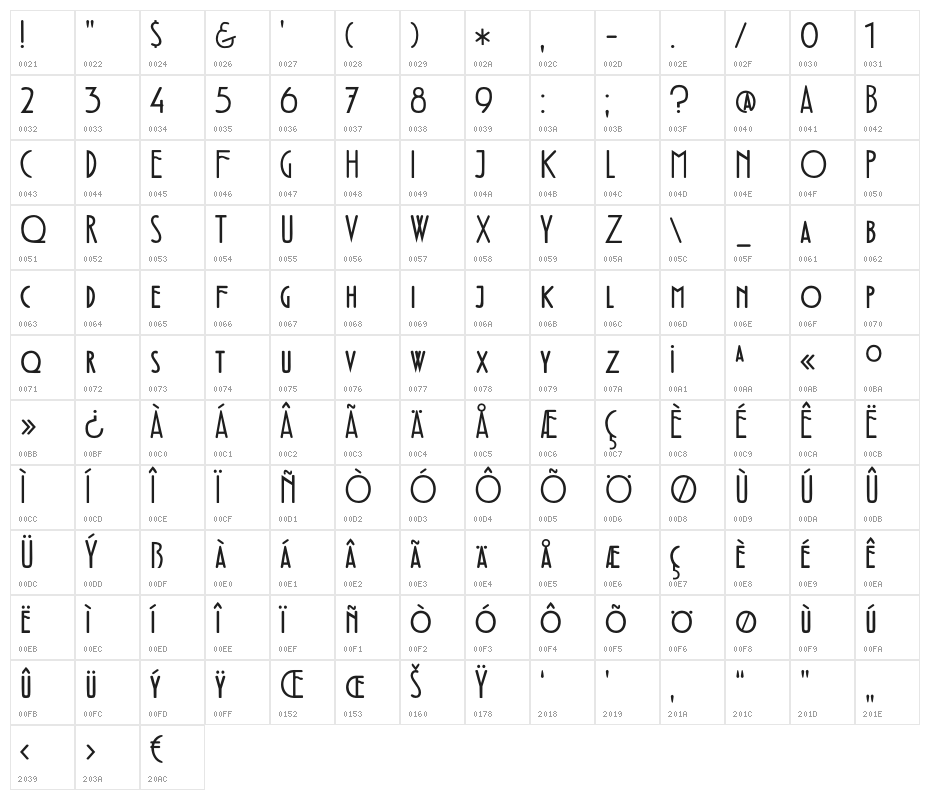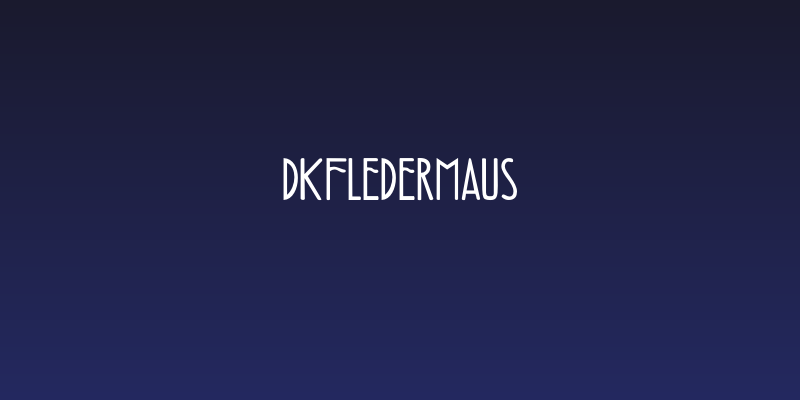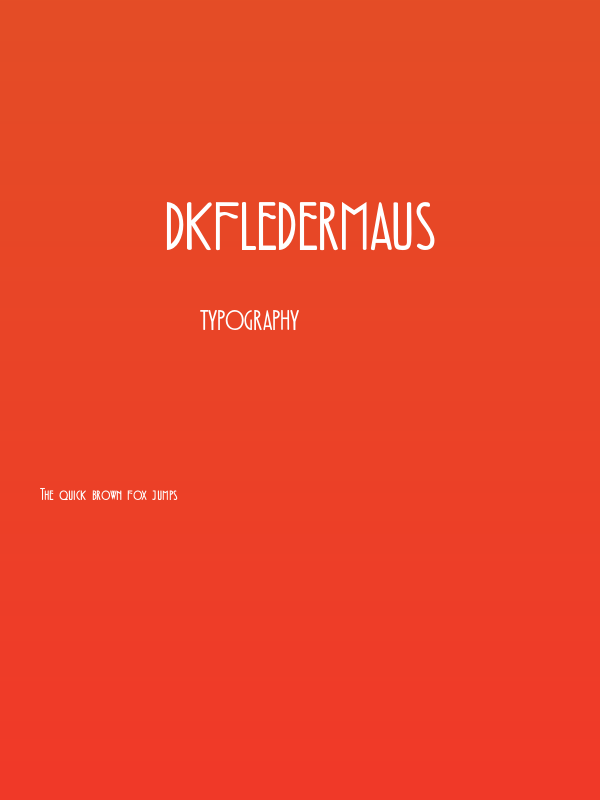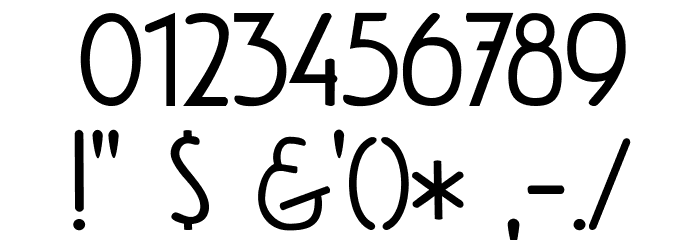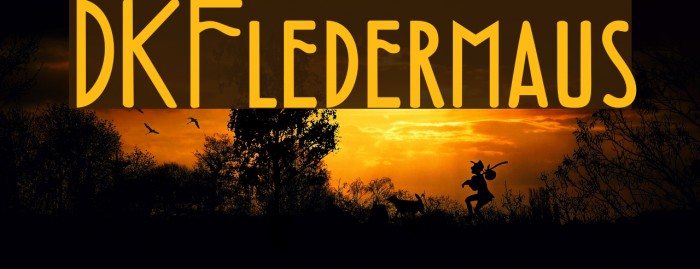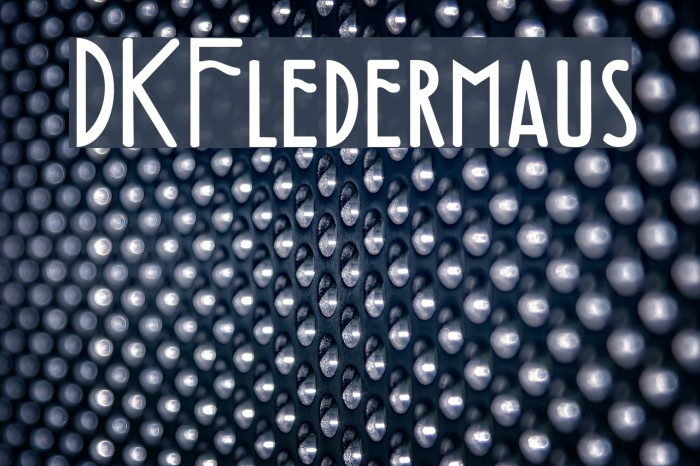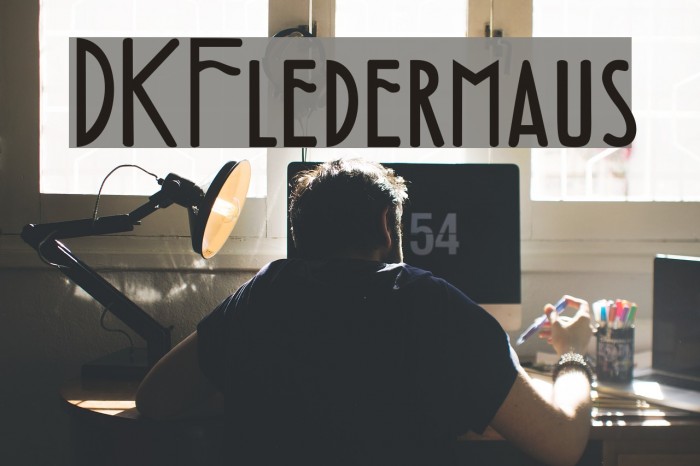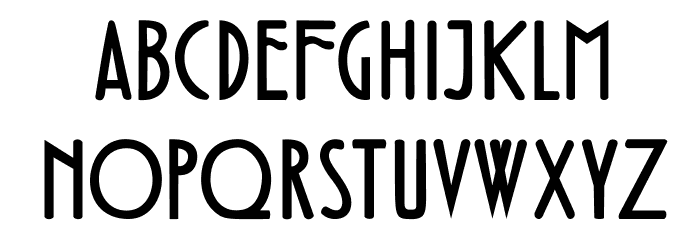
DKFledermaus Font
DKFledermaus Description
This font features a unique and playful design with a distinct Art Deco influence. The characters are tall and slender, with a slight curvature that adds a whimsical touch. The uppercase letters are particularly elongated, giving a sense of elegance and sophistication. The lowercase letters maintain a consistent style, complementing the uppercase with their rounded forms. Numbers and special characters are designed to match the overall aesthetic, ensuring a cohesive look. The font's clean lines and geometric shapes make it versatile for various design applications.
| Proposed Projects | Ideal for vintage-themed posters, branding for fashion or luxury products, and decorative invitations. |